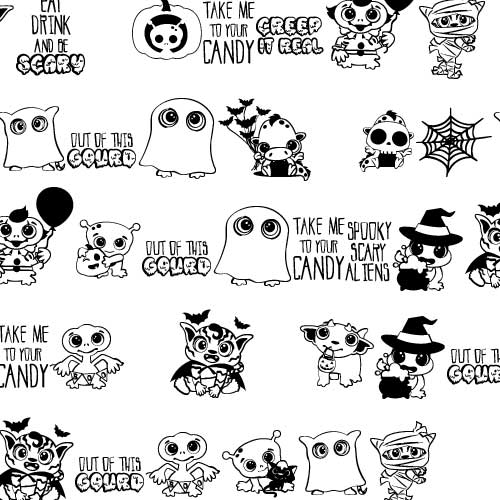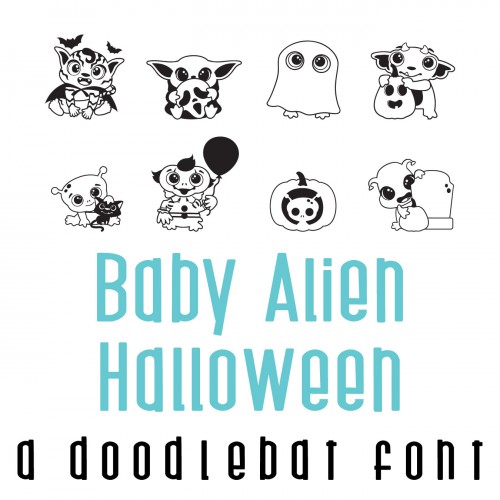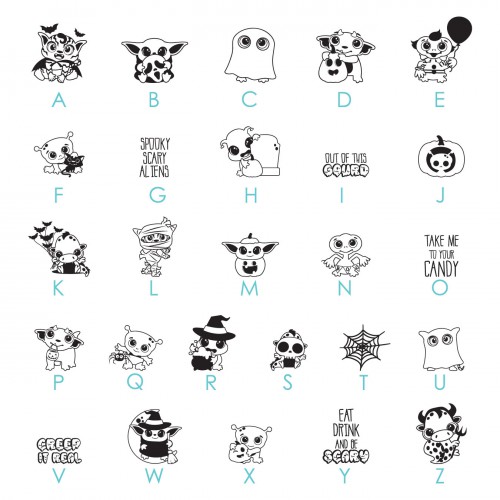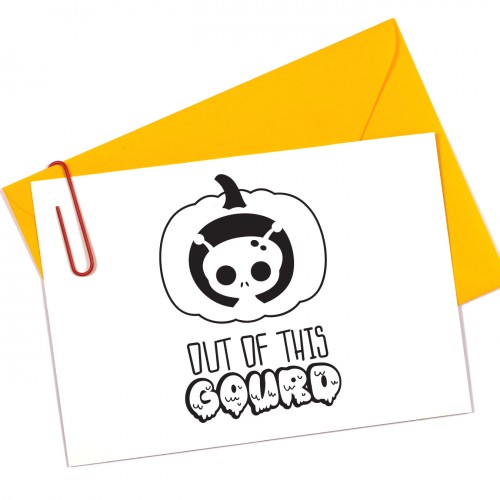
DB Baby Alien - Halloween - DB
This fun doodlebat font features 26 baby aliens ready for Halloween. Perfect for parties, decor, crafts, card making, planner stickers, scrap book pages and more!